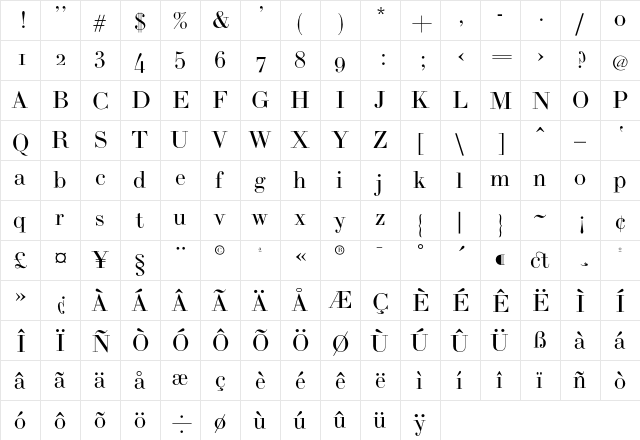
BodoniZH Regular
Design Context for BodoniZH Typeface
BodoniZH takes a measured approach to typography — its balanced proportions and neutral character make it a reliable workhorse for both digital and print work.